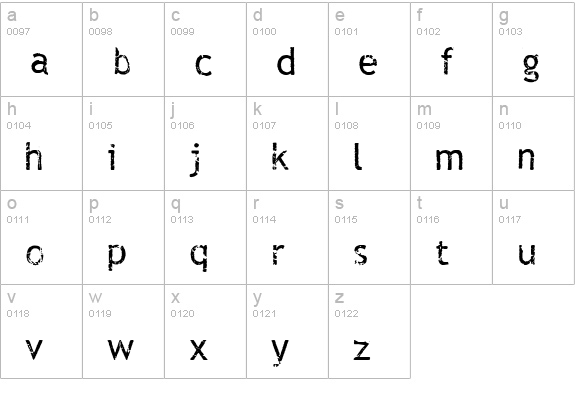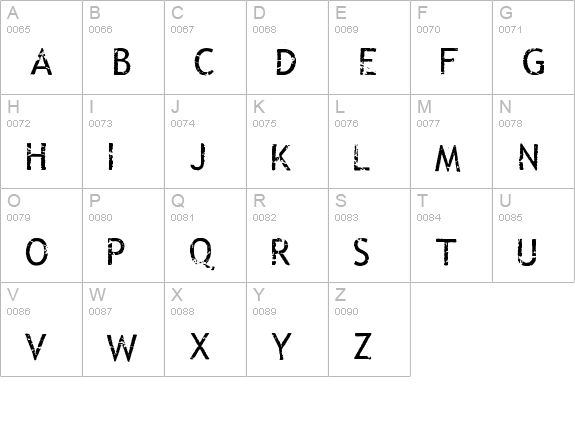
Rub This! Transfer Sheet Font Details
Introducing Rub This! Transfer Sheet font, a versatile and unique typeface that is perfect for adding a touch of creativity to your projects. This font features hand-drawn characters that give off a playful and textured look, making it ideal for various design purposes. What sets Rub This! Transfer Sheet font apart is its innovative design that mimics the appearance of transfer sheets, adding a tactile and handcrafted feel to your designs. Whether you're working on branding, packaging, invitations, or any other creative project, this font is sure to make a statement. The best part is that Rub This! Transfer Sheet font is available for free download at FontsMarket.com. So, you can easily access this one-of-a-kind font and elevate your designs without any cost involved. Don't miss out on this fantastic opportunity to add a unique touch to your projects with Rub This! Transfer Sheet font.